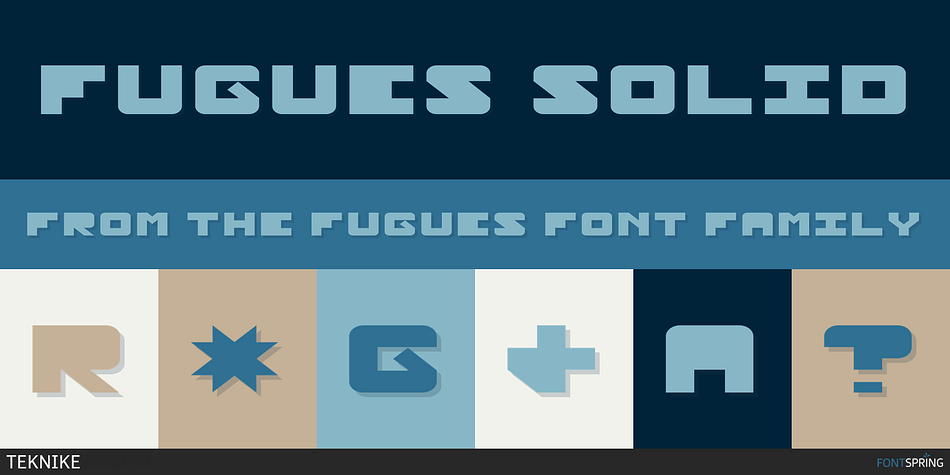
Fugues Solid
Designed by Thoma Kikis, Fugues is a display and novelty font family. This typeface has twelve styles and was published by TEKNIKE.
Fugues is a modern monospace display font. The typeface is made from basic line, circle and square geometry. Fugues Regular and Italic are inspired by straight geometric shapes and Fugues Rounded and Rounded Italic are inspired by organic geometry similar to works by Antoni Gaudí and Alphonse Mucha. Fugues is great for display work, logos, monograms, headings and posters.
The name is derived from the Latin “Fuga” meaning flight and its current meaning “compositions of many parts on a short theme and using counterpoint.”
Fugues is designed by Thoma Kikis and is currently available with Latin and Greek character sets in 12 styles.